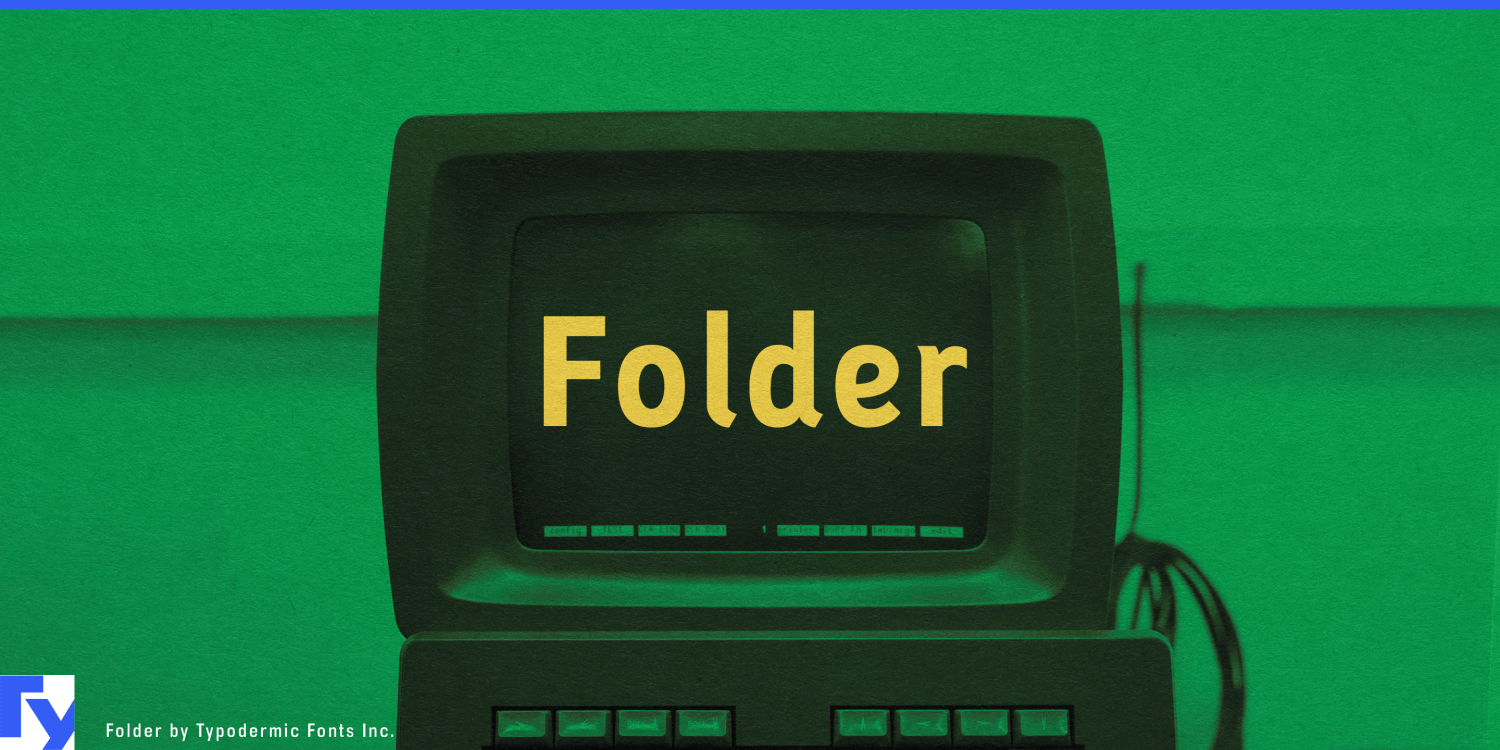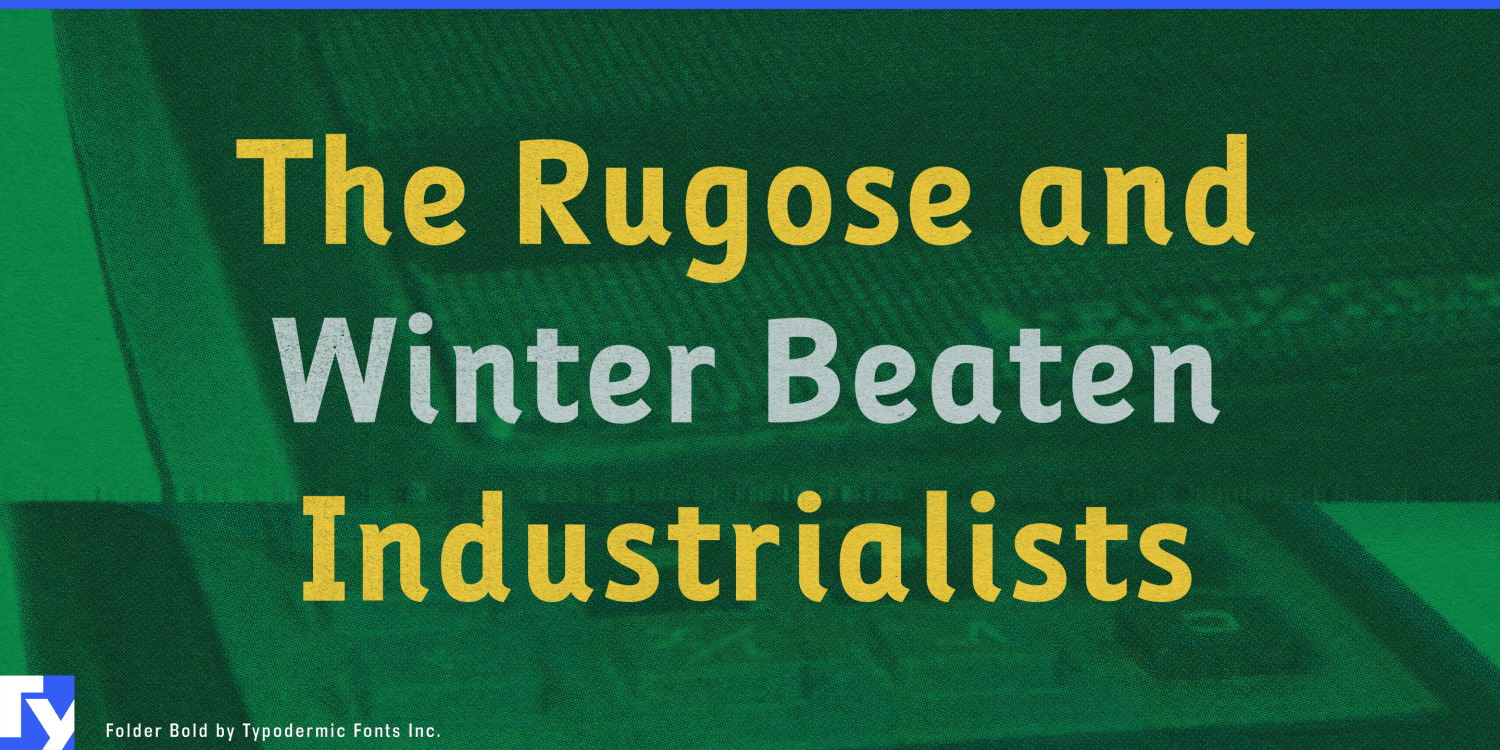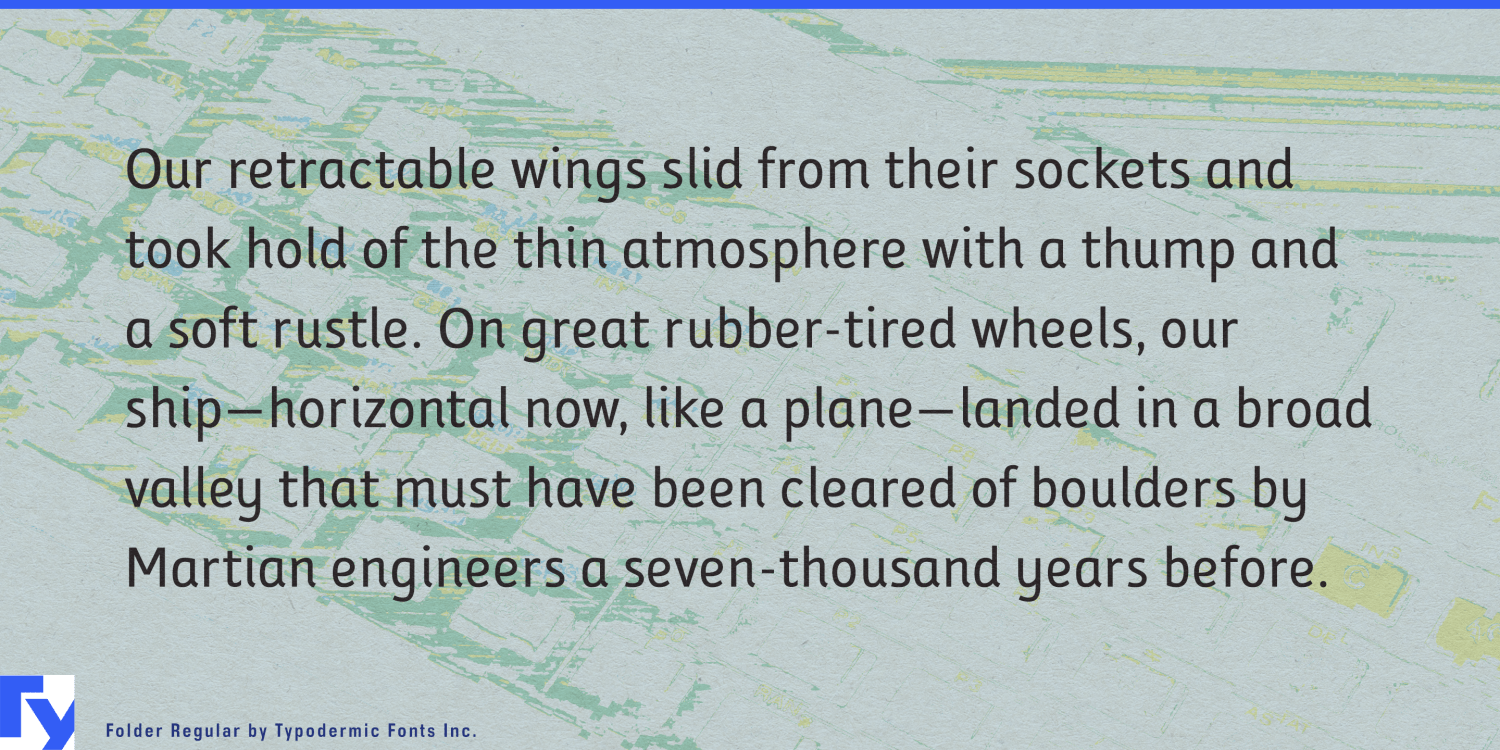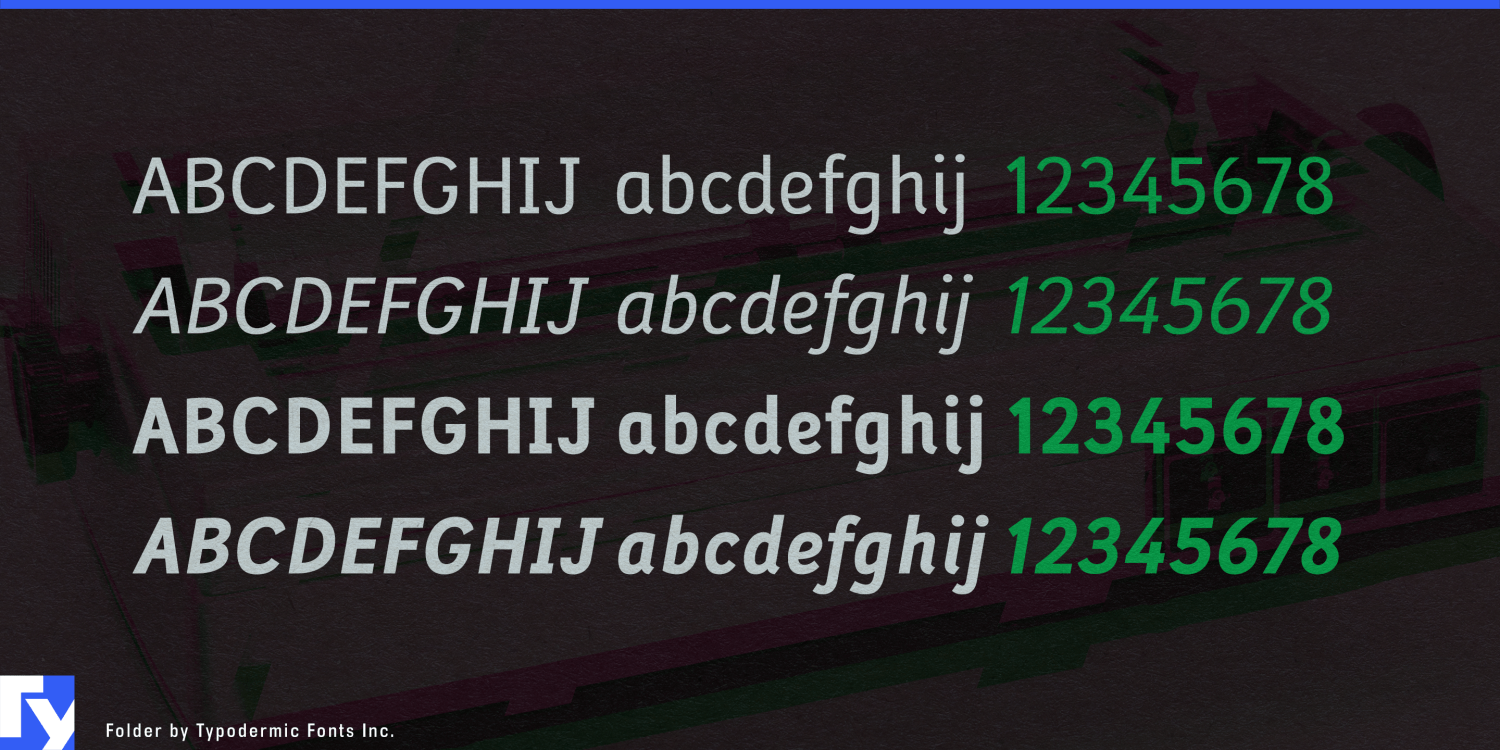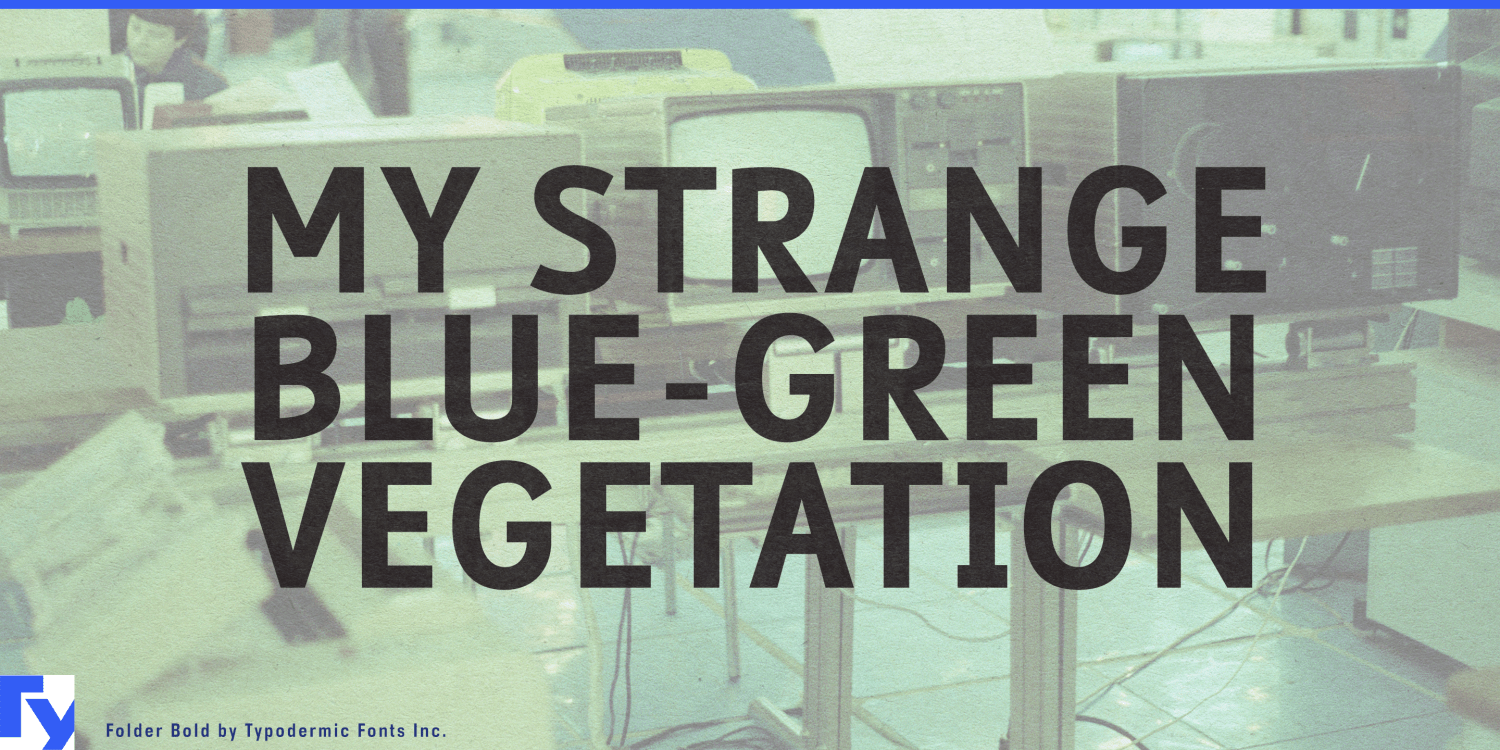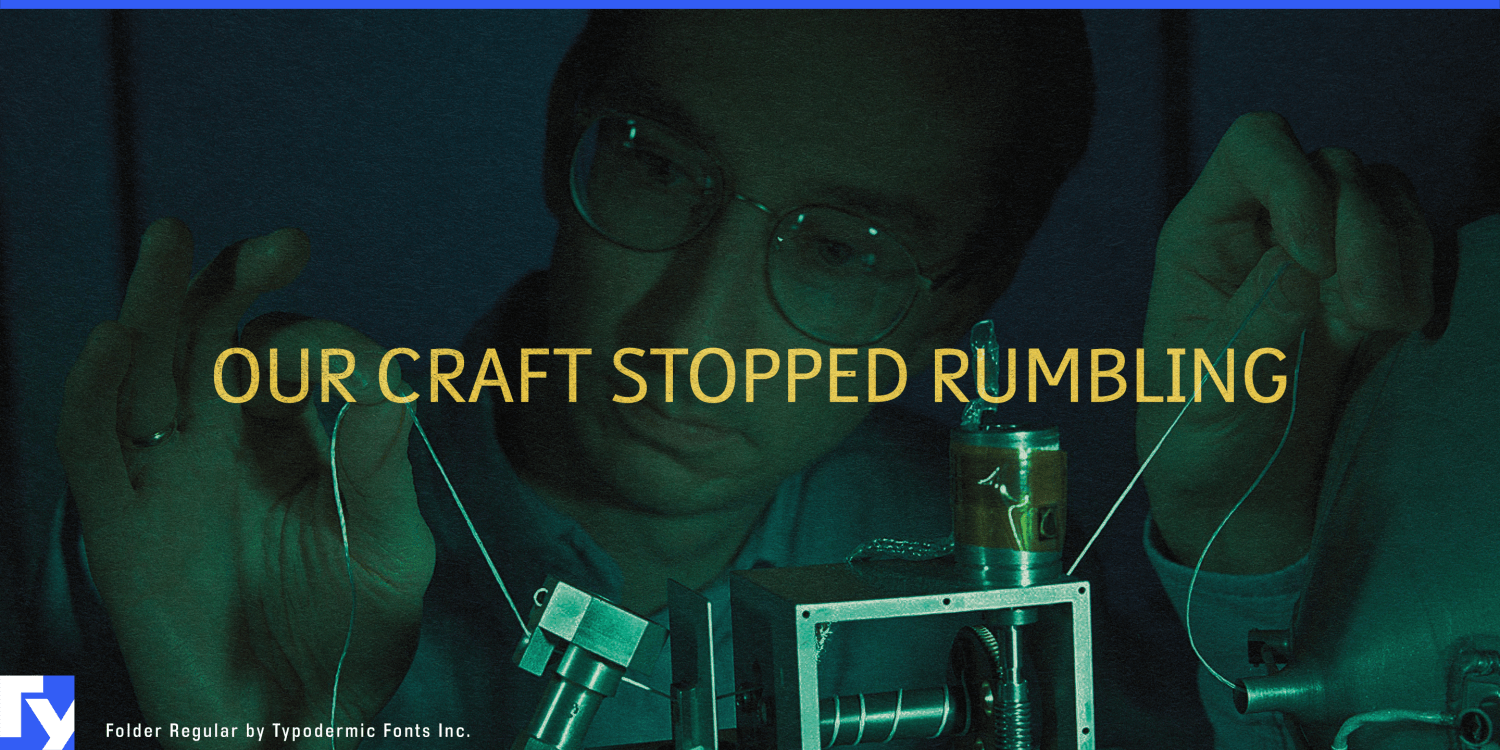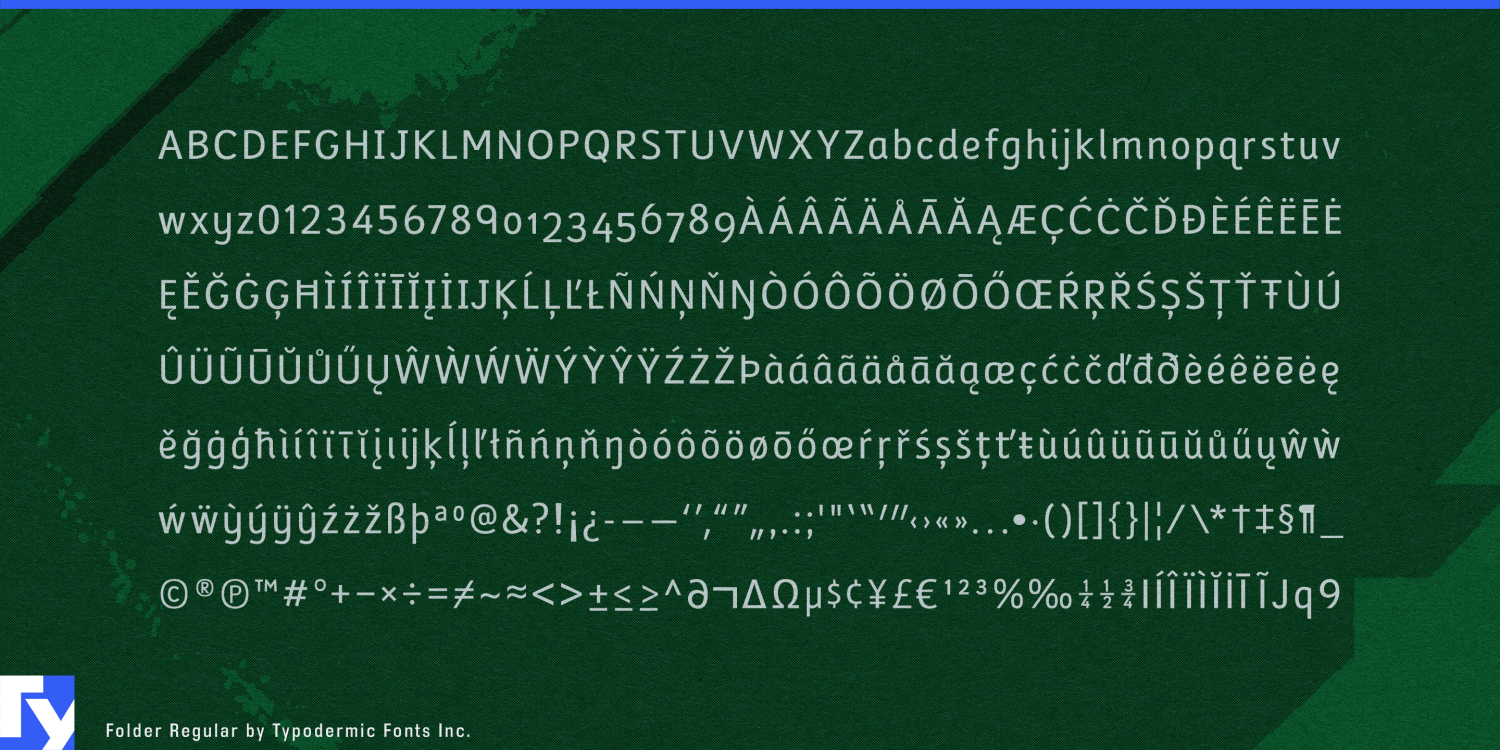
Folder
Buy NowFolder was designed for information that needs to feel instructional without looking elementary. Its clear, compact forms combine the straightforward character of educational printing with a restrained technical quality, giving serious subjects a learner-oriented voice without pushing them toward either playful classroom lettering or anonymous interface typography.
That makes Folder especially useful for educational video and streaming. Science explainers, curriculum video libraries, documentary learning segments, instructional animation, language-learning programmes, and classroom media can use it for titles, definitions, questions, diagram labels, captions, and short explanatory overlays.
STEM subjects are a particularly natural fit. Space science, engineering, robotics, electronics, computing, biology, earth science, energy, and climate education often struggle between overly juvenile classroom graphics and hard-edged technological branding. Folder occupies the middle ground. It can label a rover diagram, explain the parts of a battery cell, introduce a coding exercise, identify a laboratory process, or organize an animated engineering lesson without making the subject feel childish or forbidding.
Science museums and interactive exhibits can use the same quality for family audiences. Planetariums, technology museums, natural-history museums, transport collections, science centers, and visitor attractions can apply Folder to exhibit headings, interactive-screen prompts, experiment instructions, diagram labels, timeline captions, family activity stations, and short object descriptions.
Educational software extends Folder naturally into virtual laboratories, robotics-learning platforms, coding courses, astronomy apps, language exercises, science simulations, and AI-assisted learning systems. Folder can become the instructional voice for tutorial overlays, questions, simulation labels, worked explanations, quizzes, and information panels while the surrounding application retains its normal interface typography.
Technical training offers another useful setting. Equipment onboarding, apprenticeship courses, manufacturing education, laboratory instruction, maintenance training, and technician certification material can use Folder for process steps, callouts, diagrams, captions, and explanatory sequences.
Folder works best when serious information needs to remain visibly educational. Its combination of school-derived forms and restrained technical construction makes it especially effective for video, STEM learning, interactive exhibits, simulations, and training systems designed to help people understand unfamiliar subjects.